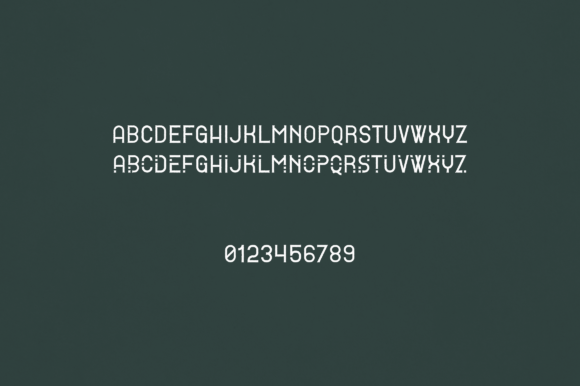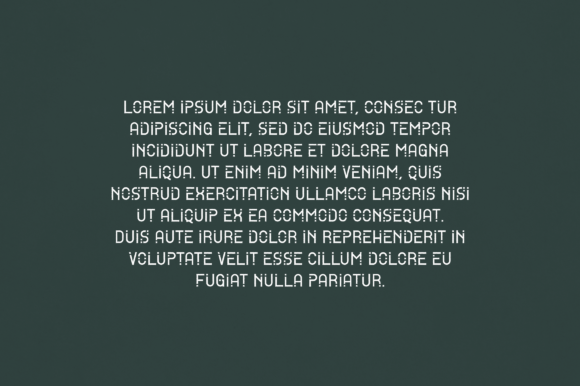
The Perfect Font for the Perfect Design
Have you ever stared at a blank page, desperately searching for the perfect font to bring your design to life? I know I have. The blank canvas stares back, taunting me with its emptiness. But then, it happens – a spark of inspiration strikes, and the perfect font is born.
Enter the Hayes Font, a sophisticated and elegant display font that adds a touch of magic to any design. Whether you’re working on a branding project, crafting a stunning magazine header, or simply want to add a stylish text overlay to a background image, the Hayes Font is the perfect choice.
As a designer, you know that the right font can make all the difference. The Hayes Font is a valuable addition to any design arsenal, offering versatility and style that’s sure to captivate your audience.
Hayes Font Key Features
- Font Size: Hayes Font has 4 weights: Light, Regular, Medium, and Bold, each with a corresponding font size.
- Unique Characteristics: Hayes Font features a modern, sans-serif design with a unique blend of geometric and organic elements.
- Character Set: The font includes a wide range of characters, including Latin, Cyrillic, and Greek alphabets, as well as punctuation and symbols.
- Kerning and Ligatures: Hayes Font includes advanced kerning and ligature pairs for improved readability and aesthetic appeal.
Honest Review: Hayes Font
Overall, I think Hayes Font is a solid addition to any designer’s toolkit. It’s a modern sans-serif font that excels in digital applications, such as web design and mobile apps. ✨ Here are some of its strengths:
- Neutral tone: Hayes Font has a neutral tone that works well in a variety of contexts, from corporate to creative projects.
- High legibility: The font is highly legible, even at small font sizes, making it perfect for digital applications where screen real estate is limited.
- Consistent spacing: Hayes Font has consistent spacing between letters and words, which helps to create a clean and professional look.
However, like any font, Hayes Font has its limitations. ⚠️ Here are some areas where it falls short:
- Lack of personality: While Hayes Font is neutral, it can also feel a bit bland and lacking in personality, which may not be suitable for more creative projects.
- Not ideal for print: While Hayes Font works well in digital applications, it may not be the best choice for print materials, such as business cards or brochures.
Overall, I would recommend Hayes Font for designers who need a clean and neutral font for digital applications. While it may not be the most exciting font, it gets the job done and is easy to work with.
Hayes Font Practical Application Guide
Tips for Getting the Most Out of Hayes Font
For optimal results, use Hayes Font for headings and titles to create a clear visual hierarchy.
Additionally, pair it with a clean and simple sans-serif font for body text.
Hayes Font is ideal for:
– Corporate branding and identity
– Editorial and publishing designs
– Digital products and interfaces
Alternatives to Hayes Font for Designers
Montserrat is a sans-serif font that originated in Argentina. It is a clean and modern font that works well for digital products and applications. When to use: For digital interfaces, mobile apps, and websites that require a clean and modern look.
Comparison to Hayes Font: Montserrat is more modern and has a more geometric feel compared to Hayes Font. While Hayes Font has a softer, more rounded look, Montserrat has a more aggressive and edgy feel.
Avenir is a geometric sans-serif font that was designed in the 1980s. It is a versatile font that works well for a wide range of applications. When to use: For corporate identities, luxury brands, and high-end products that require a sophisticated look.
Comparison to Hayes Font: Avenir has a more geometric and modern feel compared to Hayes Font. While Hayes Font has a more humanistic and rounded look, Avenir has a more technical and precise feel.